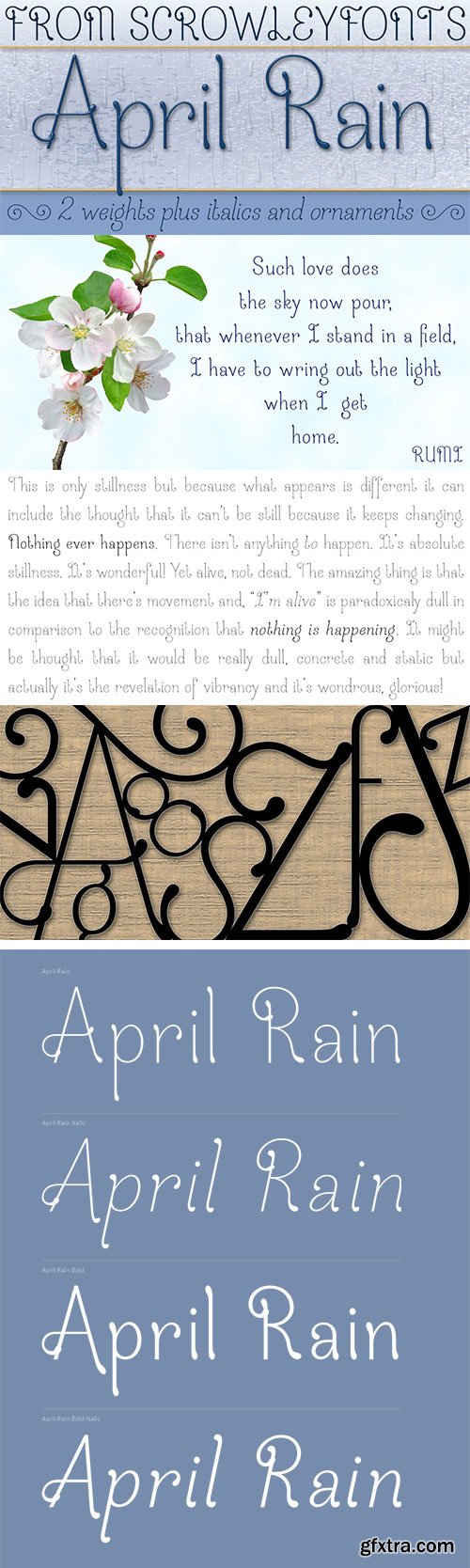
April Rain - A Delicate, Elegant Font
with Teardrop Line Endings $36
April rain is a delicate, elegant font with teardrop line endings.
It is designed to be interesting and a little unusual while remaining robust enough
to be used in a variety of contexts from titling and lists to short paragraphs.